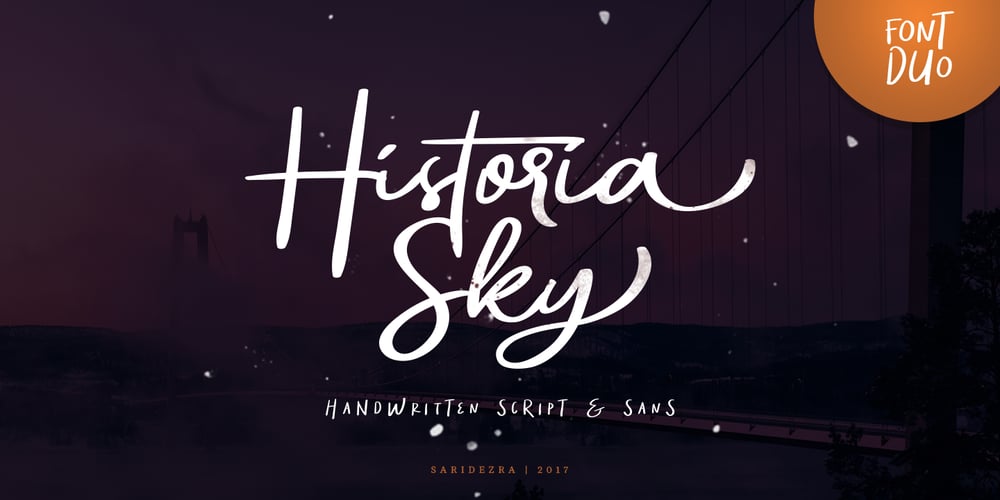
Historia Sky
Historia Sky font
Historia Sky Font Family was designed by Sarid Ezra and published by Sarid Ezra. Historia Sky contains 2 styles and family package options. Historia Sky is a handwritten font duo that contain stylistic alternates, swashes, and more to create your own customized signature or making a cute quote. Historia Sky also has multilingual support and is PUA uncoded. You can use this font for everything you want!For another questions, please send a mail to saridezra@gmail.com. Thank You!PS: Type underscore + number (from 1 to 5). Or copy Some_3thing in the font preview bellow.